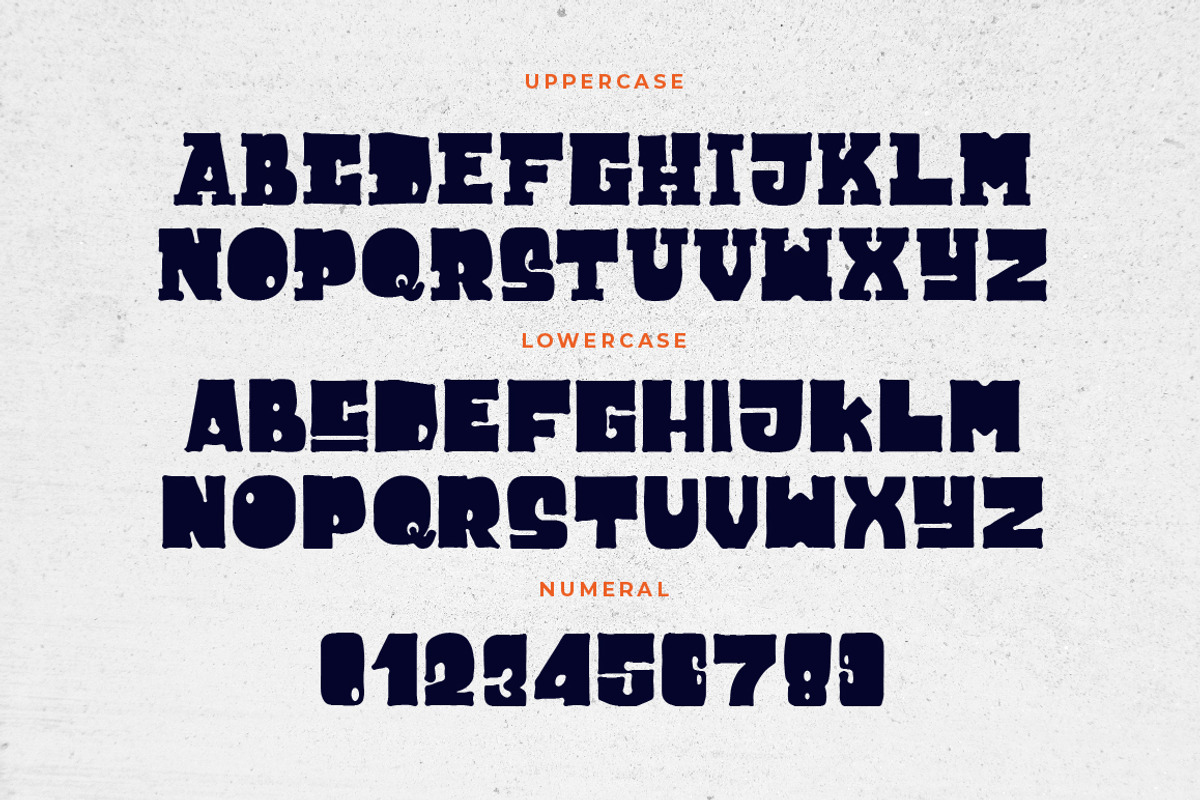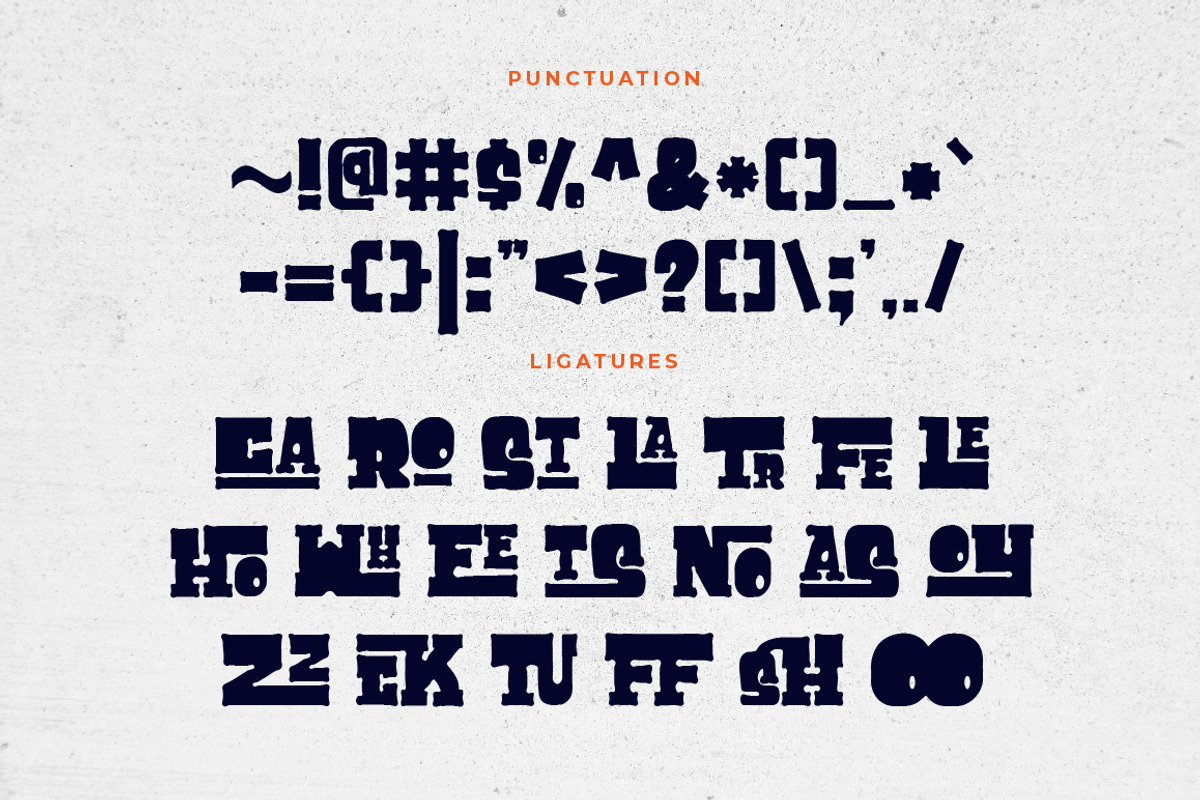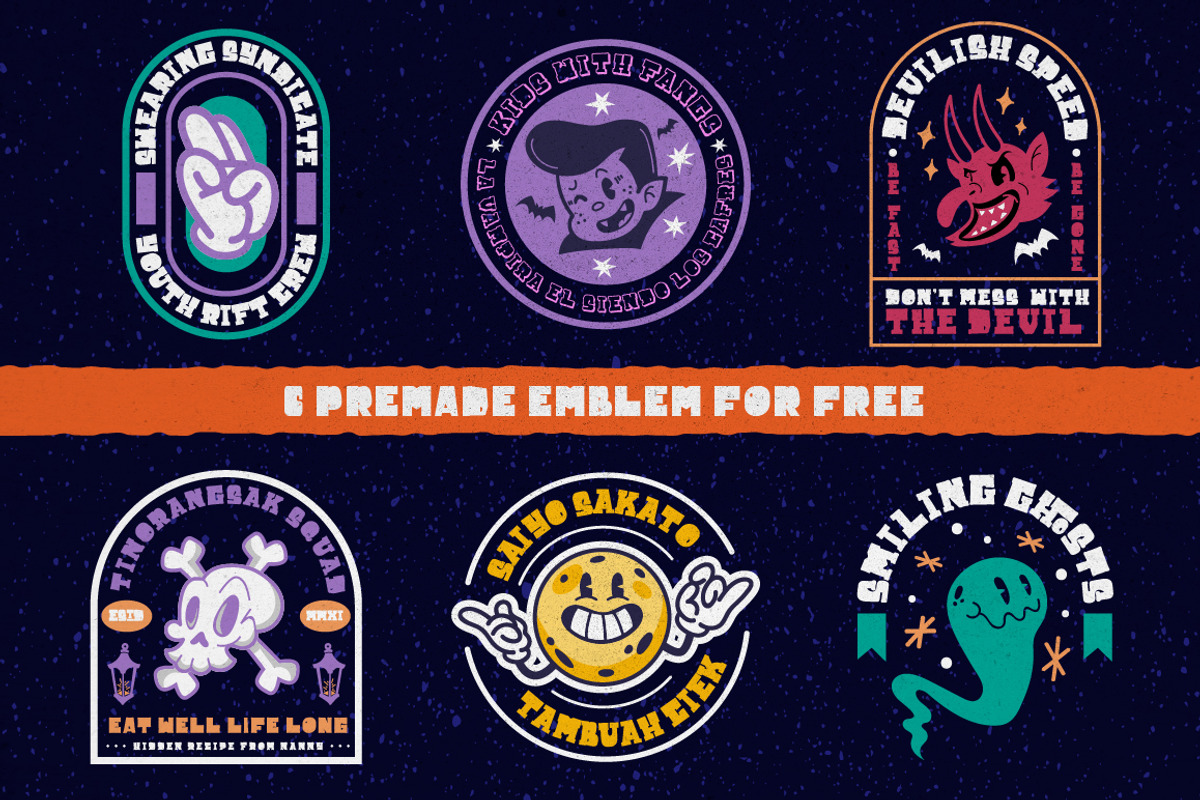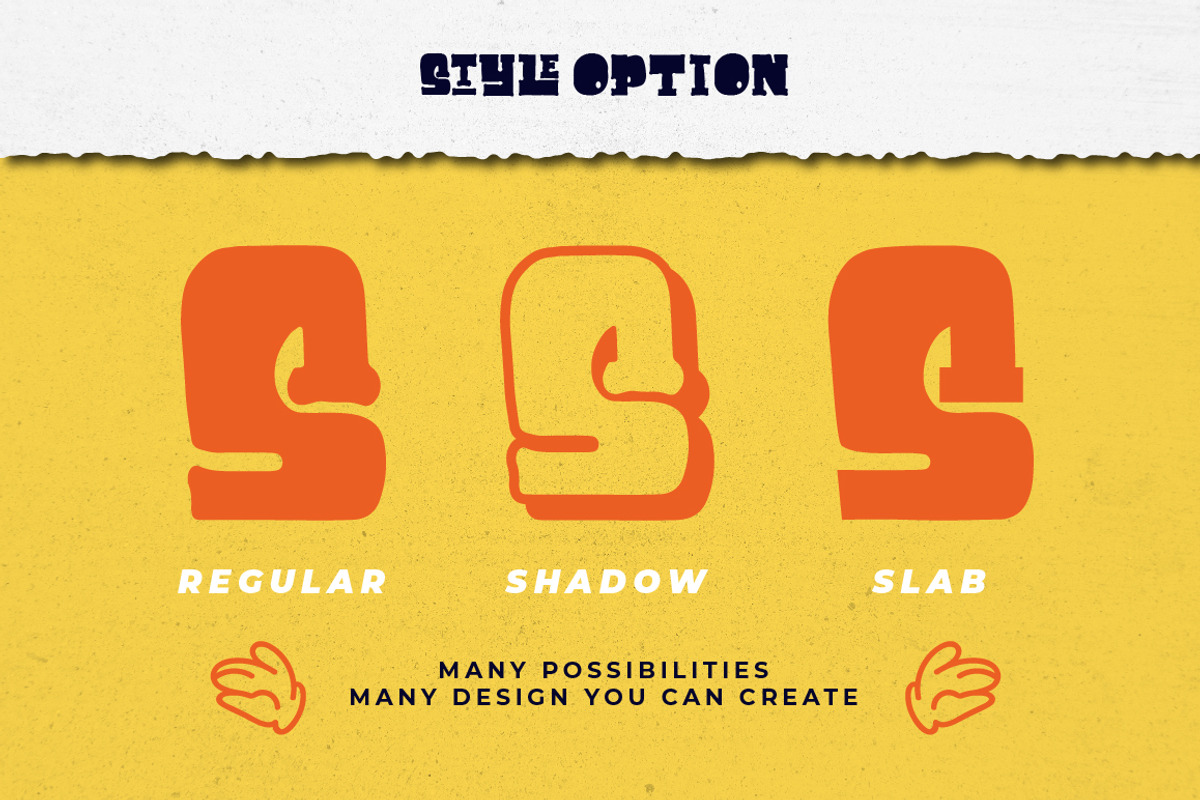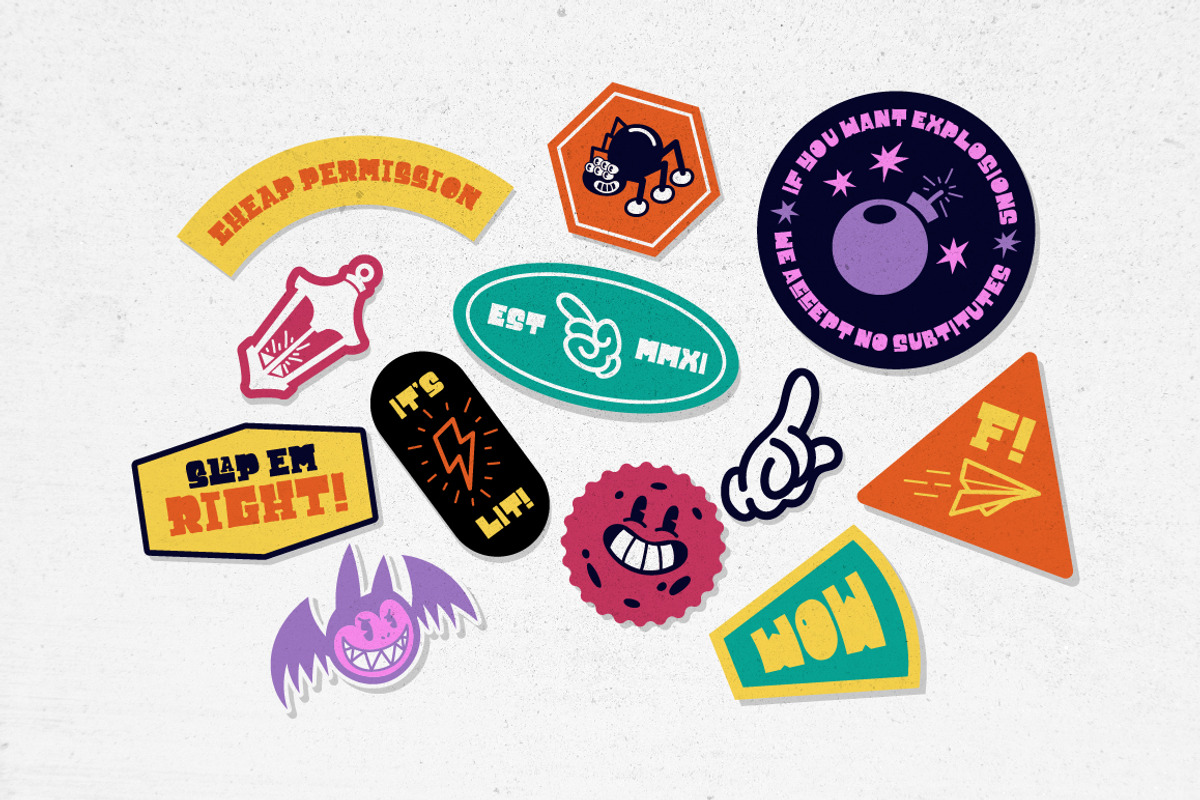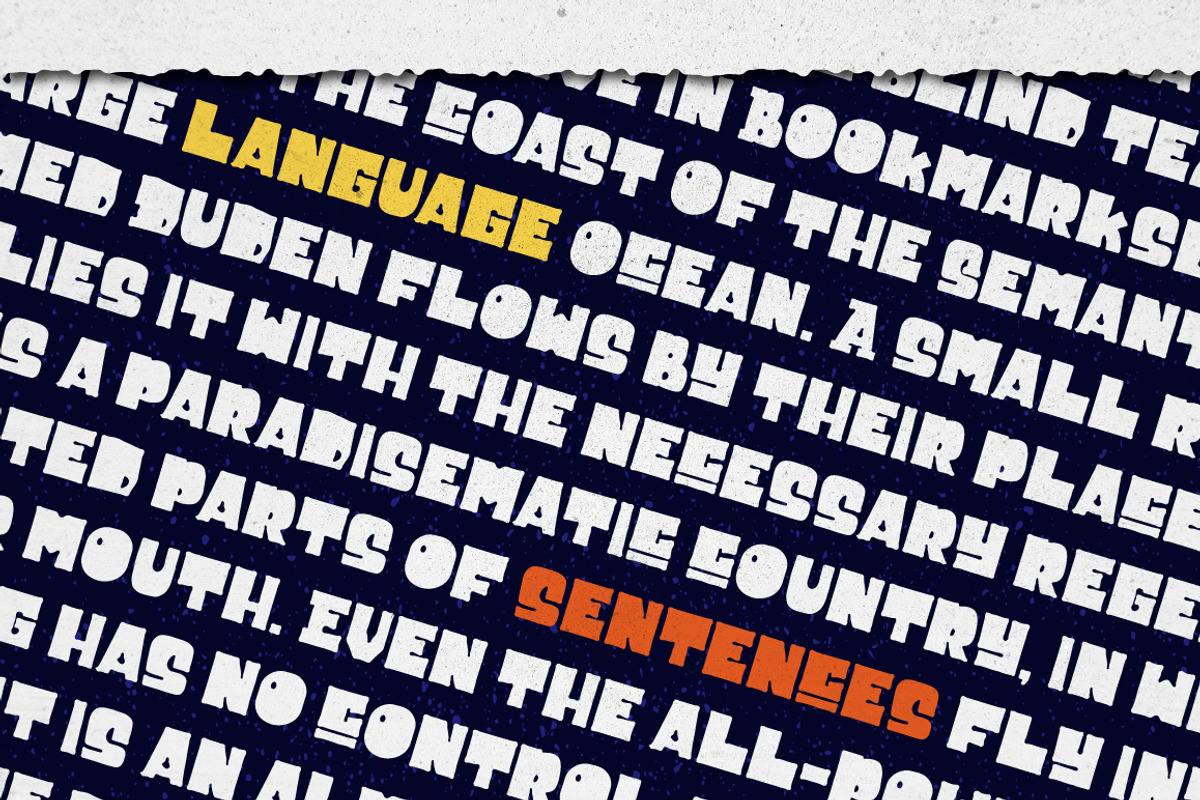
Cuppakabra Typeface + Bonus
Cuppakabra Typeface is inspired from retro cartoon at Mid 20's, although it's name based on Spanish name from legendary creature "Chupacabra", but this typeface are 100% suitable for any retro, vintage, or something strong, bold, slab, also fun tho.
This typeface family are comes up with handmade extras inspired from retro cartoon style that you can mix & match each other to make your design or else looks fabulous! If you want to add something that retro-ish, classy, mixed with cartoon style, this typeface family is your answer. Cuppakabra also suitable for poster, logotype, apparel designs, or any design requirements.
OpenType features with Ligatures in some characters that you can mix and match any letters to fit your design. To access the alternate glyphs, you need a program that supports OpenType features such as Adobe Illustrator CS and Adobe InDesign.